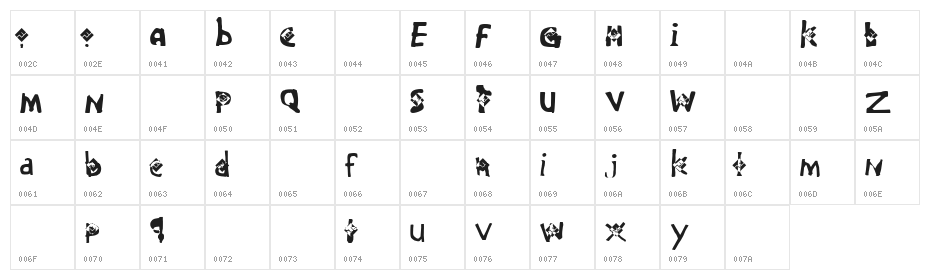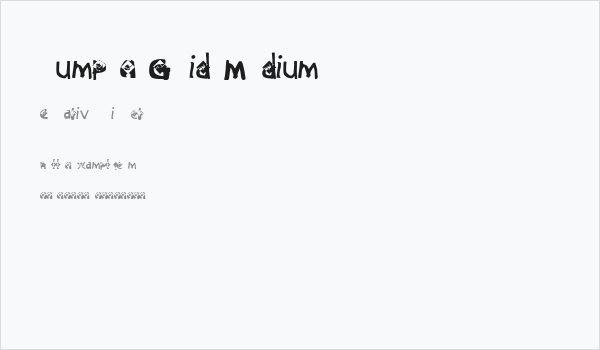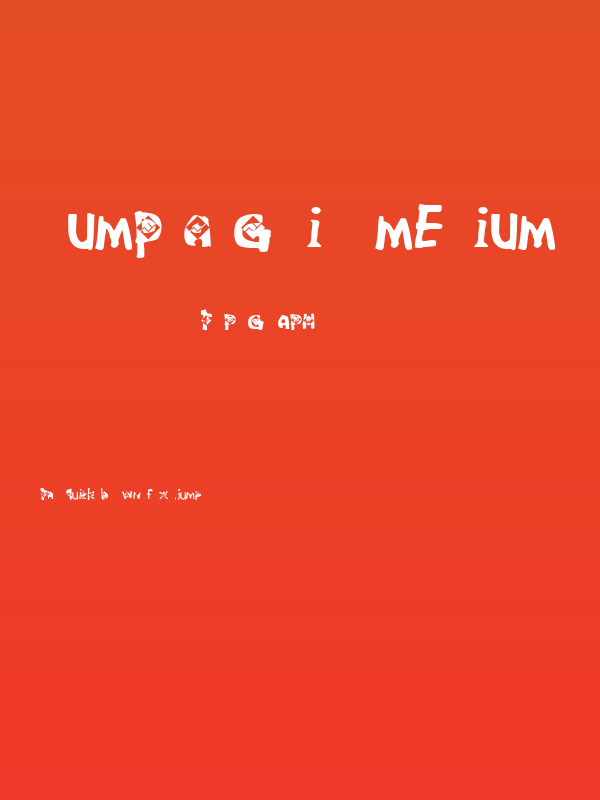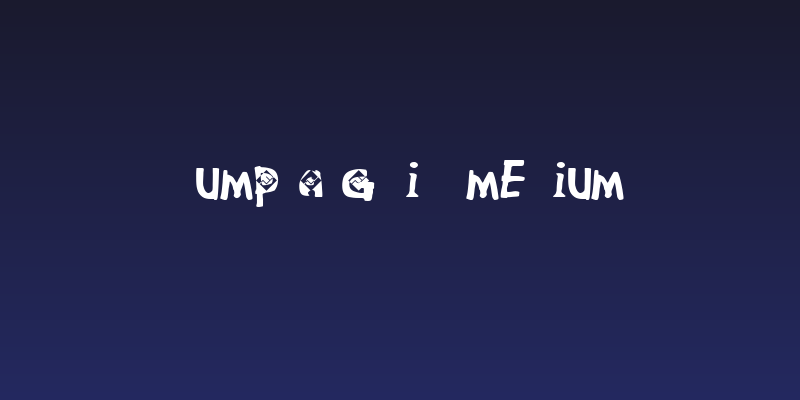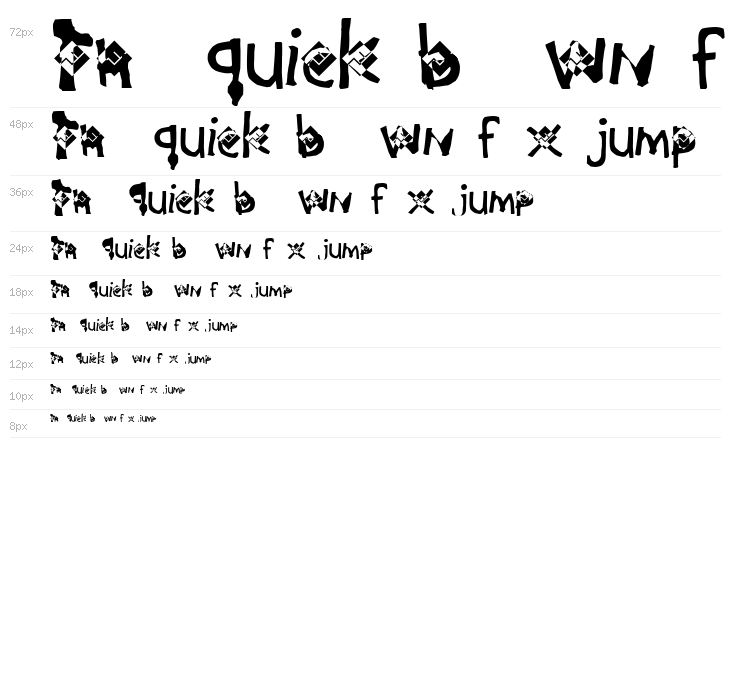
Jump & Grid Medium Font
Jump & Grid Medium Description
This font features a highly decorative and abstract style, incorporating geometric patterns within each character. The letters are bold and have a unique, artistic flair, making them stand out with their intricate design. The font combines elements of both modern and traditional styles, with a playful yet sophisticated appearance. The characters are not uniform in shape, giving the font an organic and dynamic feel. This font is ideal for creative projects where a distinctive and eye-catching typeface is needed.
| Proposed Projects | Ideal for artistic posters, album covers, branding for creative industries, and unique logo designs. |